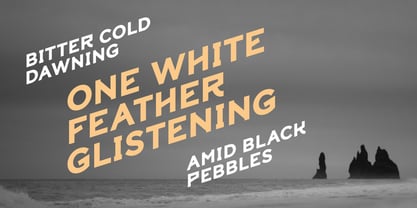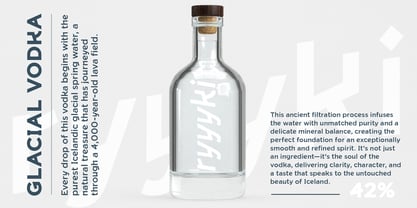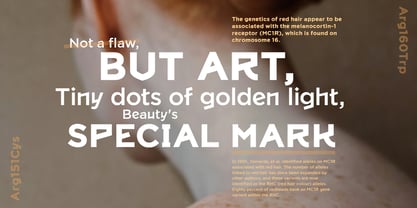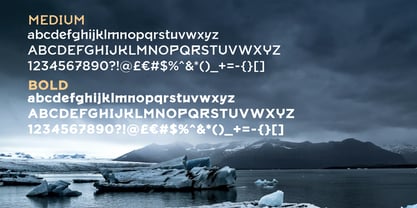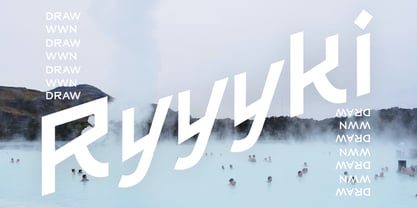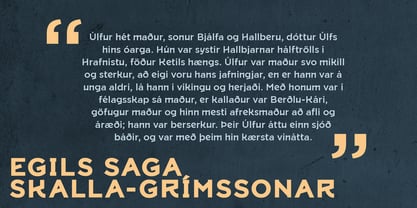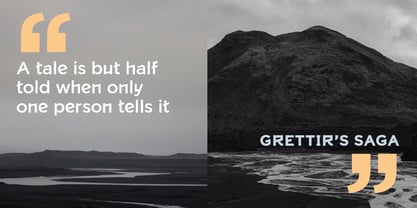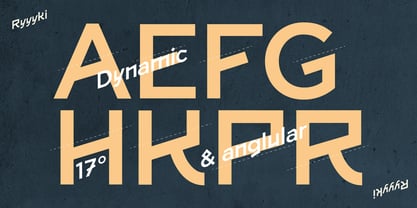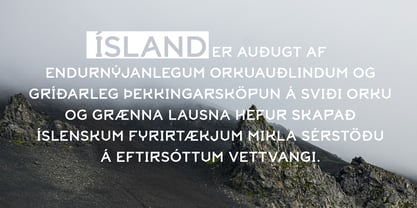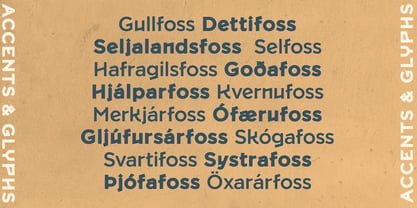
Ryyyki
by Drawwwn
The Ryyyki Font Family was designed by Ryan Thomas and published by Drawwwn. Ryyyki contains 2 styles and family package options. More about this family
Ryyyki is a striking, Scandinavian-influenced serif typeface that seamlessly blends angular forms with subtle runic references. Drawing inspiration from Icelandic folklore and named after Reykjavík, meaning "smoky bay," this typeface embodies a unique Nordic atmosphere and rich mythology. Its distinctive letterforms exude a sense of being both carved and contemporary, providing a cool, confident edge perfect for branding, fashion, and magazine design. Ryyyki is ideal for projects that aim for visual impact while maintaining character and restraint, making it a versatile choice for various creative applications.
Designers: Ryan Thomas
Foundry: Drawwwn